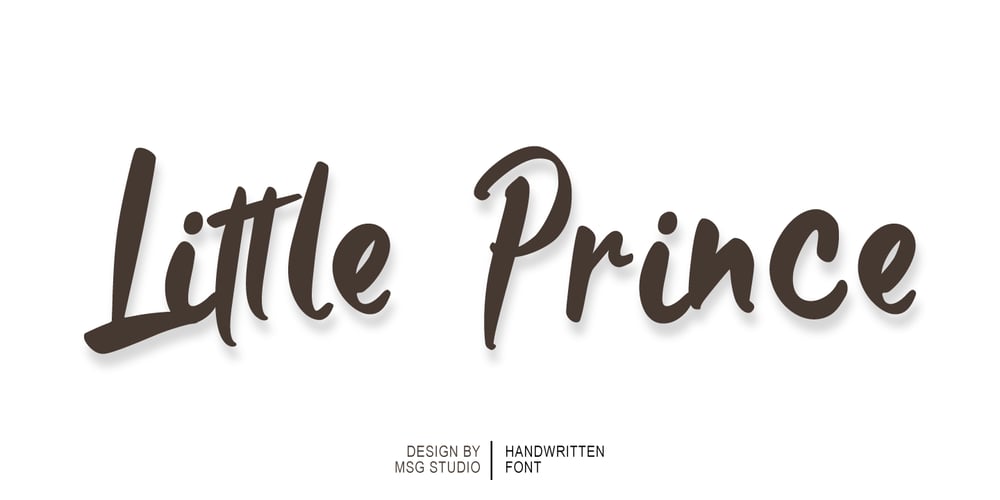
Little Prince
Little Prince font
Little Prince Font Family was designed by Fajriadi Fajriadi, Fajriadi and published by Masinong Studio. Little Prince contains 1 styles and family package options. IntroducingLittle Prince Font is a fun bold font, fresh & modern style . Hellokids Font suitable for logo, branding, greeting card, poster and any design that you create.Features:UppercaseLowercasePunctuation & NumeralSupport PUA UnicodeSupport MultilingualIf you don’t have a program that supports OpenType features such as Adobe Illustrator and CorelDraw X Versions, you can access all the alternate glyphs using Font Book (Mac) or Character Map (Windows).Thank You for purchase!